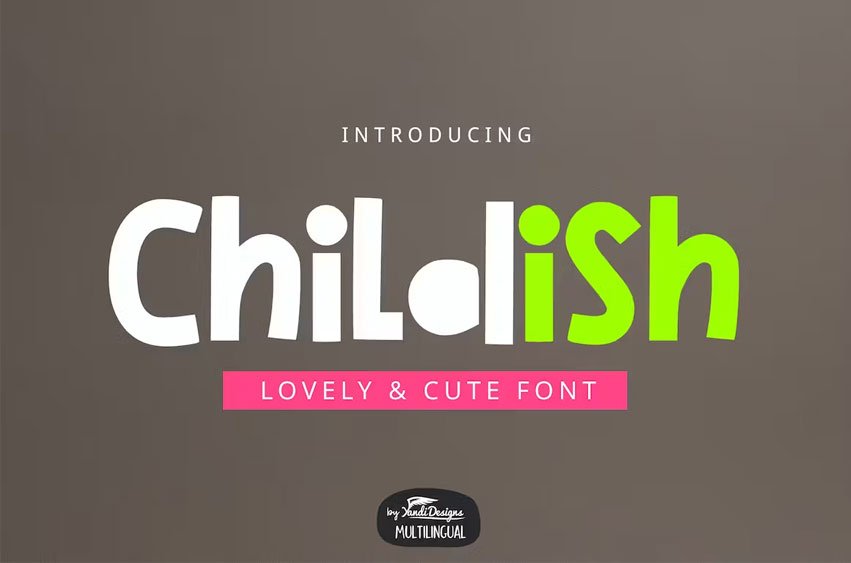
Childish Lovely Font is lovely, cute, multipurpose handmade font suitable for many project children: book, quotes, logos, headings, titles, etc.
Childish Lovely Font Preview